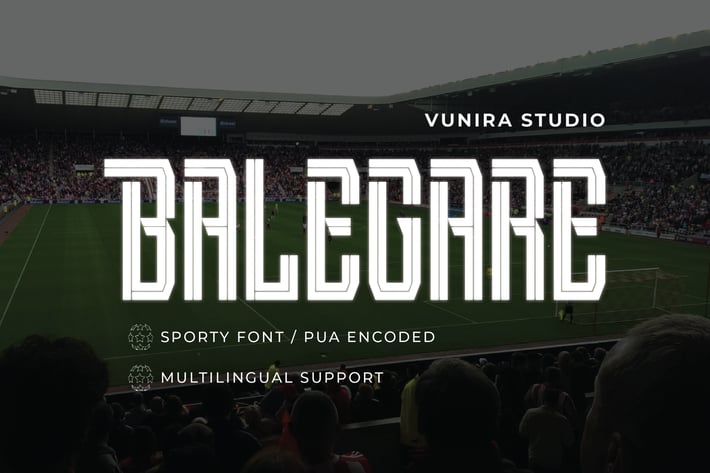
Balegare - Sport Font
Balegare - Sport Font with a calligraphy style, So beautiful on invitation like greeting cards, branding materials, business cards, quotes, posters, and more!